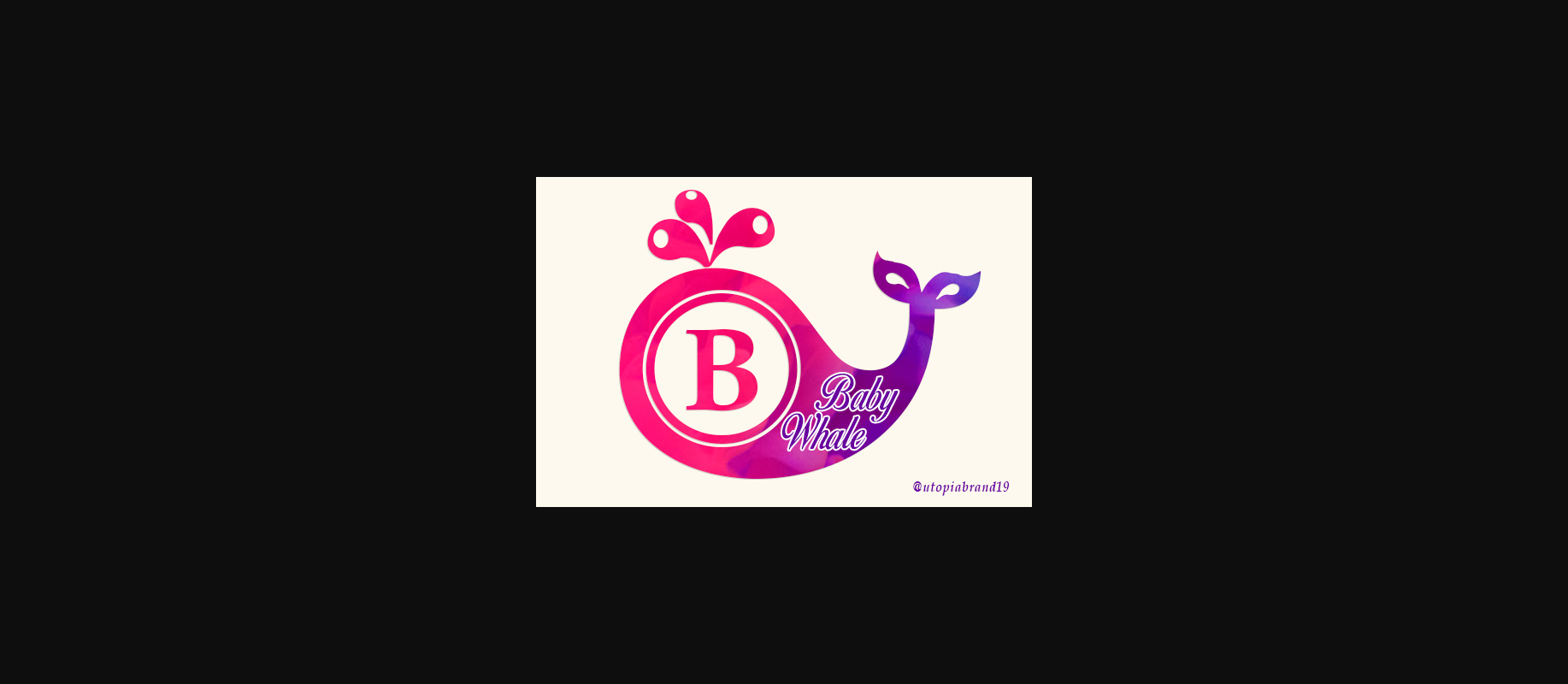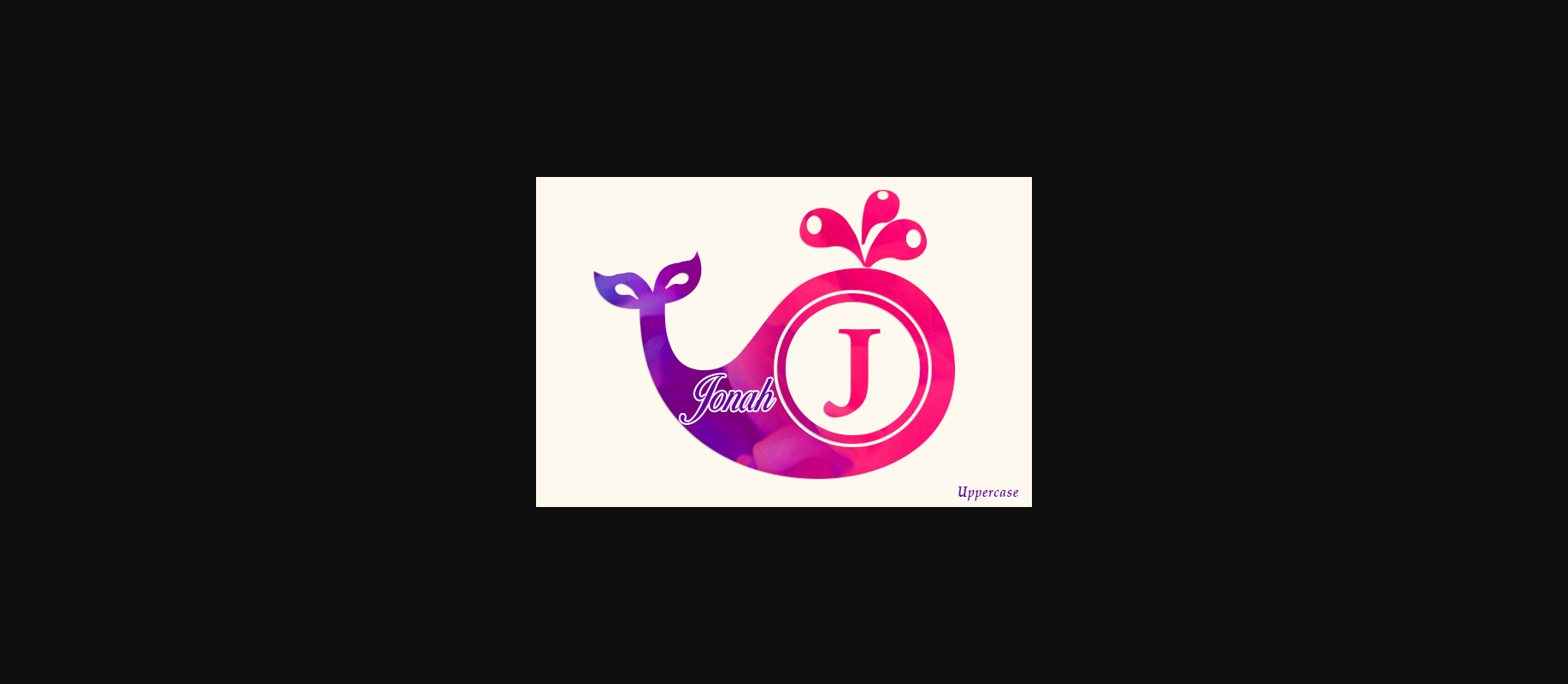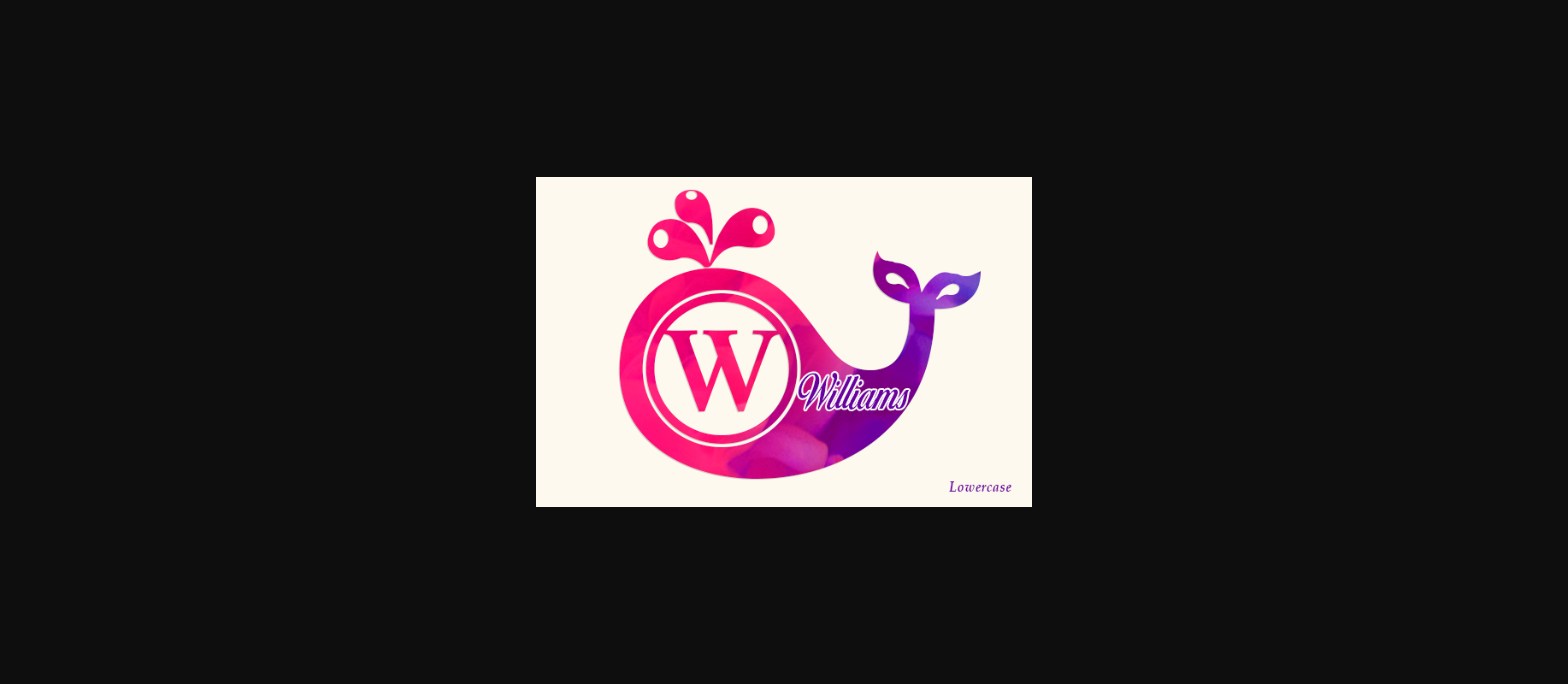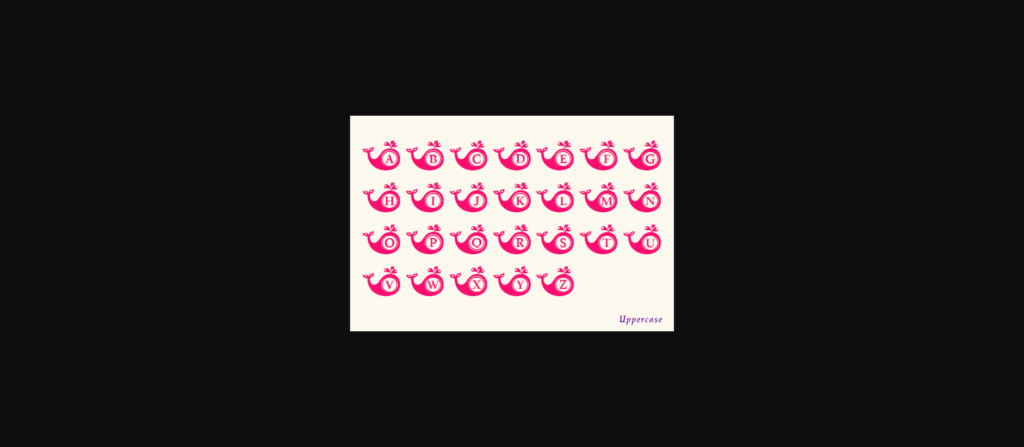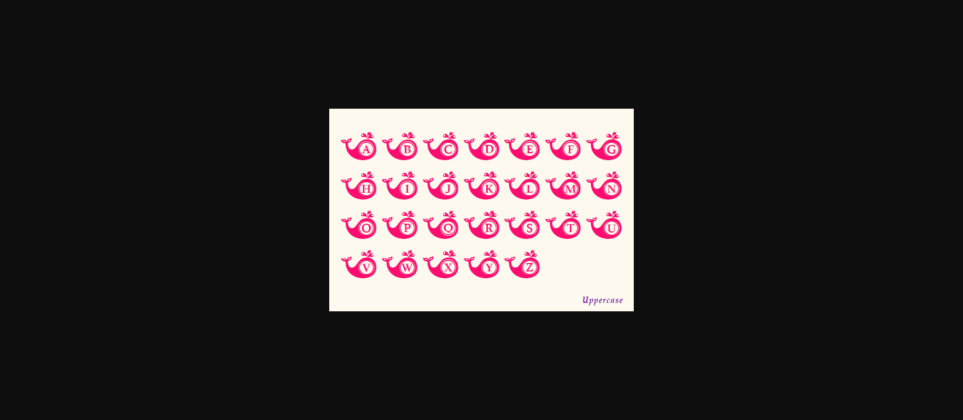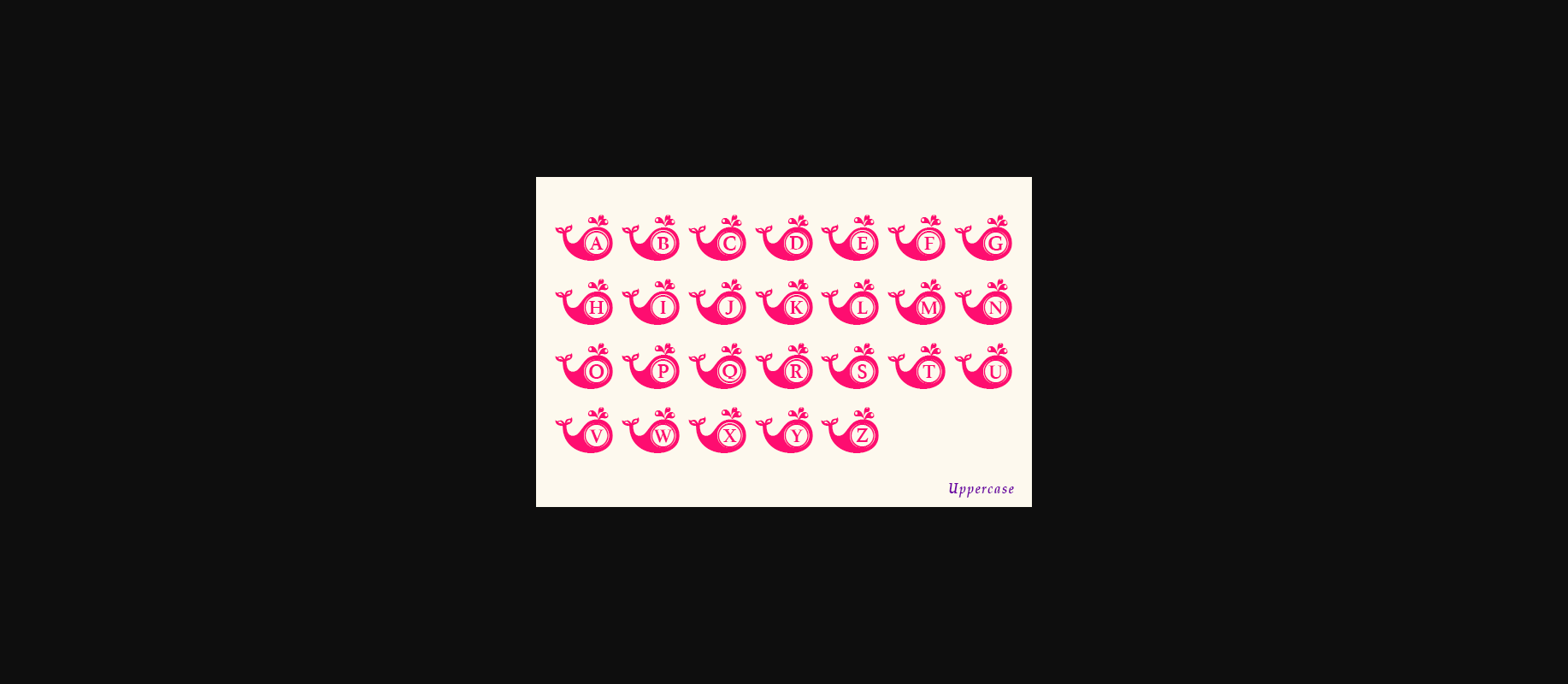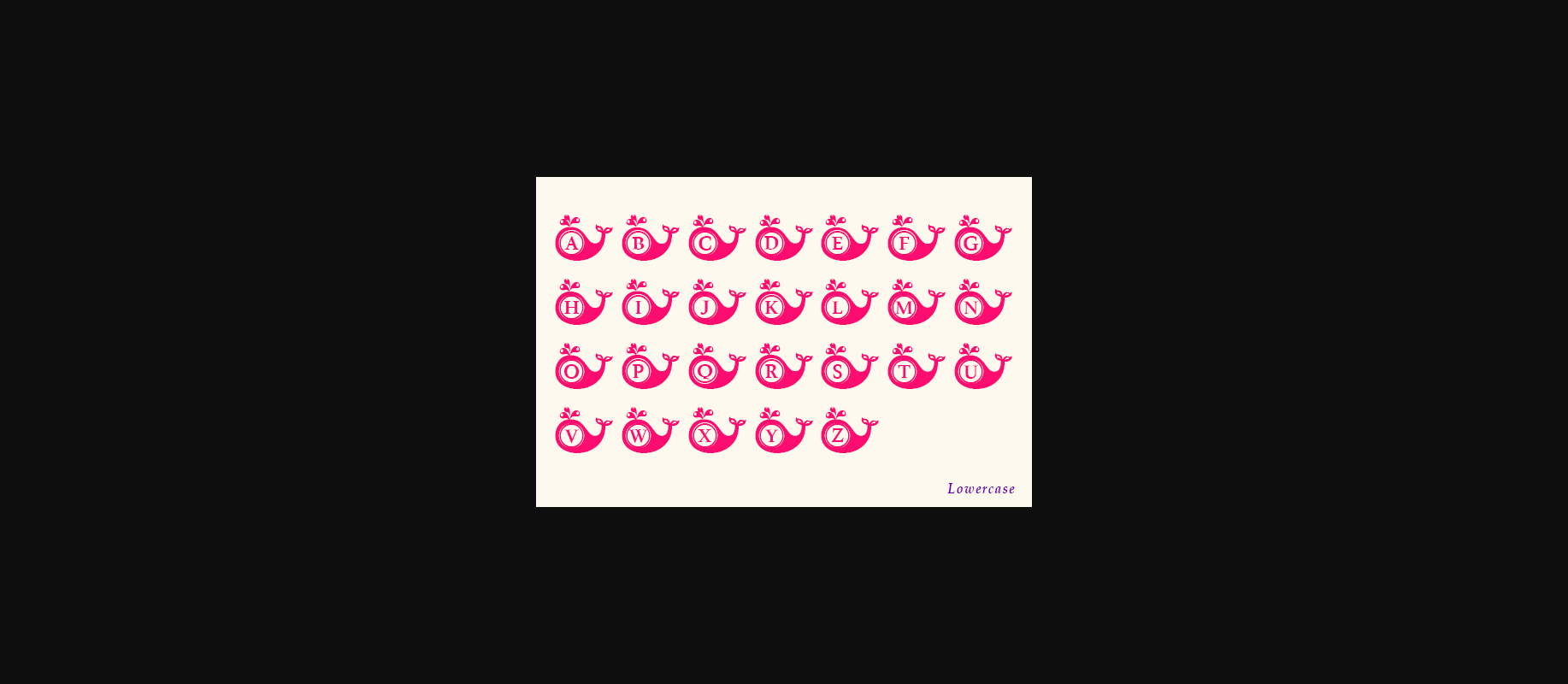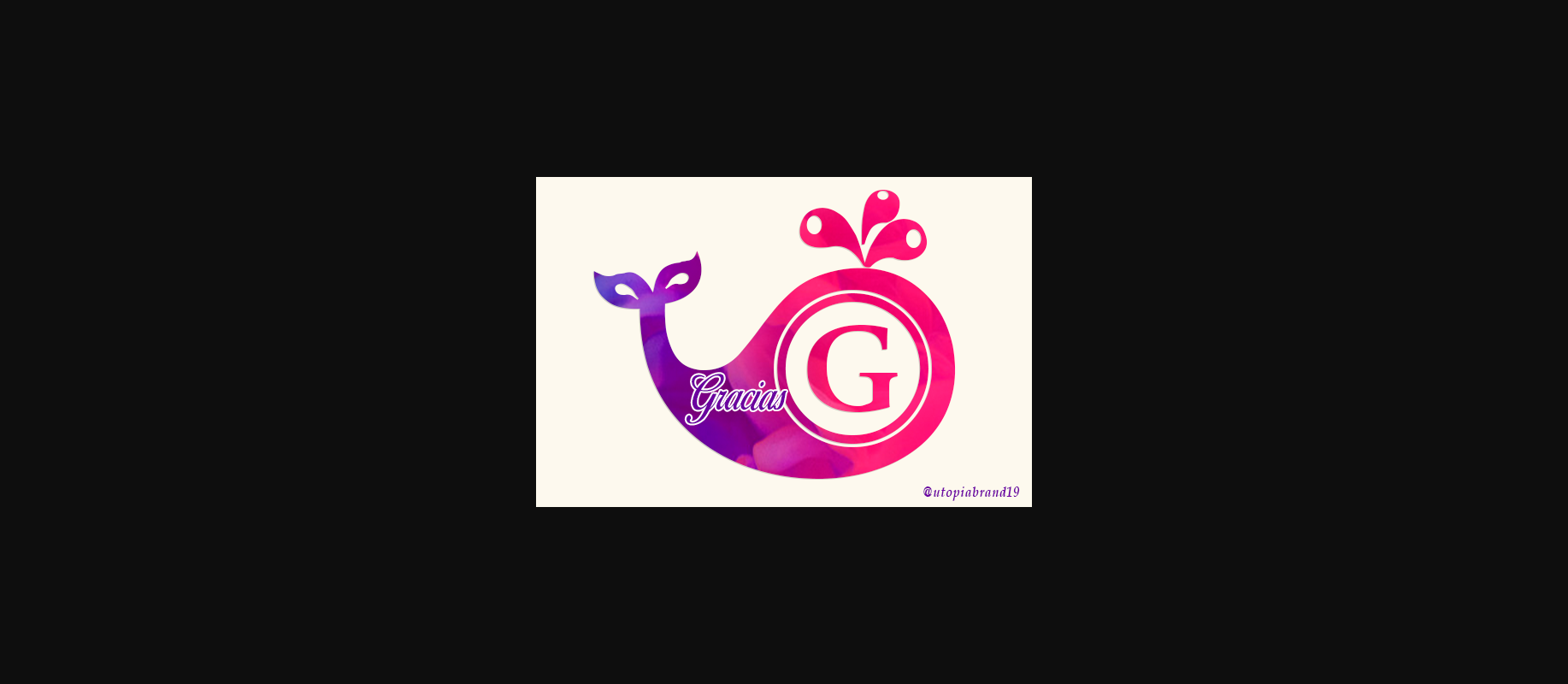
Baby Whale Monogram is a charming decorative font. Fall in love with its authentic feel and use it to create gorgeous invitations, beautiful stationary art, eye-catching social media posts, and cute greeting cards.